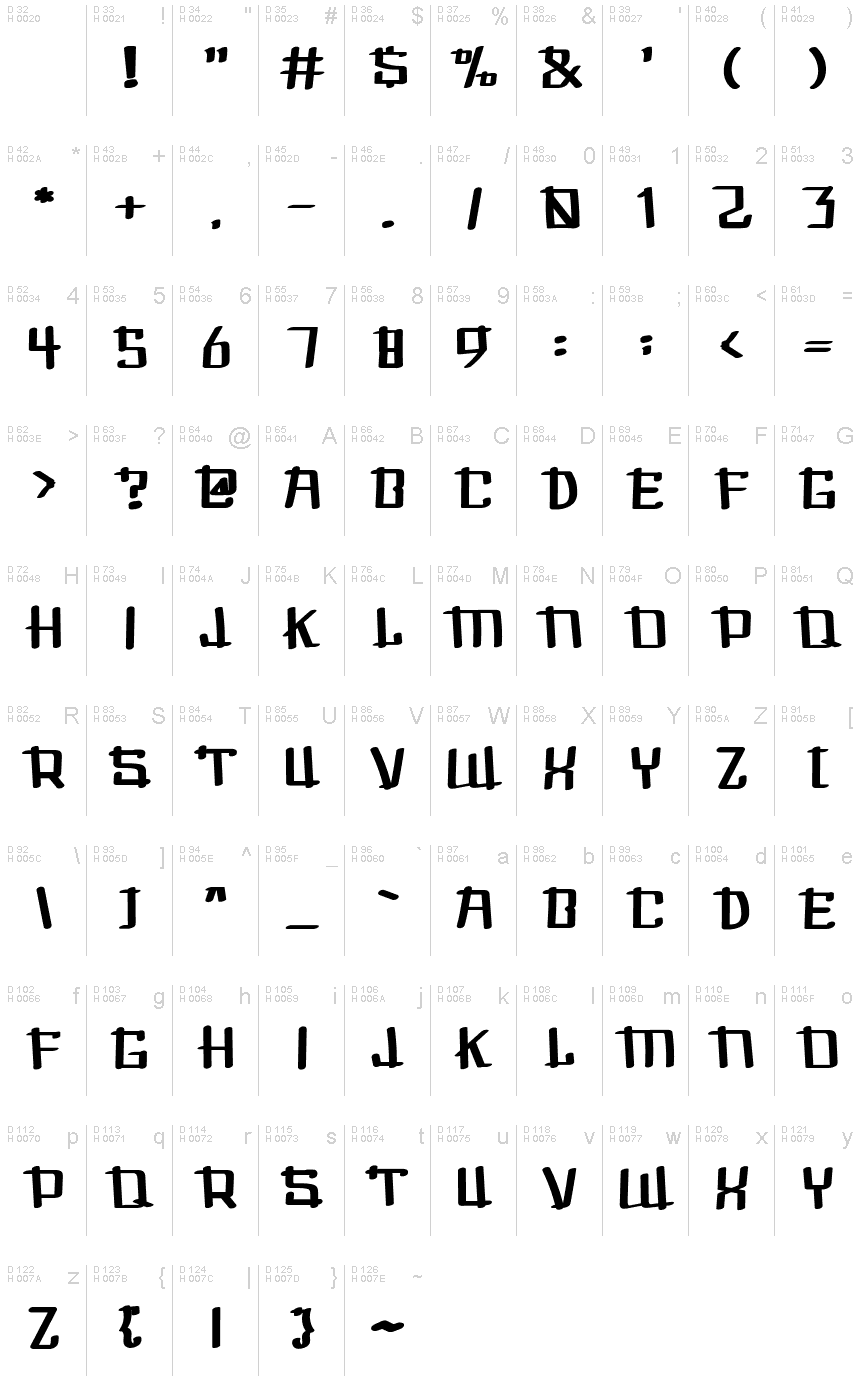
Baby Loves
Baby Loves, created by sixtwenty studio, is a display font with a semi-expanded width. Its playful and whimsical style makes it perfect for children's books, party invitations, and baby shower announcements. But don't let its name fool you – Baby Loves can also add a fun touch to branding materials for businesses in the fashion or beauty industry. Its semi-bold typeface is sure to catch the eye and make any project stand out. Whether you're designing a logo or creating social media graphics, Baby Loves is the perfect choice for adding some personality and charm.
Baby Loves is a happy, cute and adorable Japanese themed display font.
Baby Loves is perfect for posters, t-shirts, book covers, packaging, stickers, quotes and all designs that require a cute, happy and adorable Japanese style